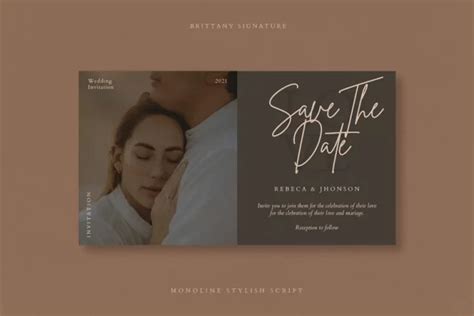
Brittany Font: A Comprehensive Guide
Hey everyone, and welcome to our deep dive into the world of the Brittany font ! If you’re looking for a typeface that brings a touch of elegance, sophistication, and perhaps a hint of vintage charm to your designs, then you’ve come to the right place, guys. We’re going to explore everything there is to know about this beautiful font, from its origins and characteristics to how you can best utilize it to make your projects truly shine. So, buckle up, grab your favorite beverage, and let’s get started on unraveling the magic of the Brittany font.
Understanding the Appeal of the Brittany Font
So, what makes the Brittany font so special? Well, a lot of it comes down to its design. Typically, fonts named “Brittany” evoke a sense of classic beauty, often inspired by traditional serif or script styles. Think of elegant wedding invitations, high-end branding, or perhaps a beautifully penned letter. The Brittany font often features graceful curves, balanced letterforms, and a certain fluidity that makes it incredibly pleasing to the eye. It’s the kind of font that whispers rather than shouts, conveying a sense of refined taste and attention to detail. Whether it’s a more formal serif with delicate serifs or a flowing script with swashes, the underlying theme is often one of timeless appeal. It doesn’t follow fleeting trends; instead, it relies on established design principles to create a lasting impression. This makes it a fantastic choice for projects where you want to convey trust, luxury, or a personal, heartfelt message. We’re talking about a font that can make your brand feel established and your personal notes feel extra special. It’s versatile enough to be used in both print and digital media, though its true elegance often shines brightest when rendered at larger sizes where its intricate details can be fully appreciated. Don’t underestimate the power of a well-chosen font, and the Brittany font is definitely a contender for adding that extra spark to your creative endeavors.
Where Did the Brittany Font Come From?
Understanding the history and inspiration behind a font can really enhance your appreciation for it. While “Brittany Font” might refer to a specific commercial typeface or a style that’s become popular, its roots often lie in classic typography. Many fonts bearing such names are inspired by historical scripts or early printing styles. For instance, some Brittany fonts might draw inspiration from 18th-century calligraphy, with its elaborate flourishes and detailed strokes. Others might be modern interpretations of classic serif fonts, designed to be more legible for contemporary use while retaining a sense of historical gravitas. The name itself, “Brittany,” evokes images of the Brittany region in France, known for its rich history and unique cultural heritage. This connection can lend the font an air of European sophistication and timelessness. It’s important to note that there might be several fonts available that go by the name “Brittany,” each with its own unique designer and backstory. Some might be free, while others are premium, paid fonts. When you’re looking for the perfect Brittany font, it’s always a good idea to check the designer’s notes or the font’s description to understand its specific inspiration and intended use. This context can help you ensure that you’re choosing a font that aligns with the emotional and aesthetic goals of your project. For designers, knowing the lineage of a font is like understanding the provenance of a piece of art – it adds depth and meaning to its application. So, while we might not be able to pinpoint a single origin for all Brittany fonts, their collective appeal often lies in their connection to a rich typographic past and a sense of enduring elegance.
Key Characteristics of the Brittany Font
Let’s get down to the nitty-gritty, guys! What are the defining features that make a font a “Brittany” font? While there can be variations, most fonts that carry this name share a few common traits that contribute to their signature look and feel.
Serif Styles
Many Brittany fonts lean towards the serif category. This means you’ll often find small decorative strokes, or “serifs,” at the ends of the main strokes of letters. These serifs can range from very delicate and subtle, adding a refined touch, to more pronounced and classic, reminiscent of traditional book printing. Fonts like “Brittany Serif” or those inspired by classic styles often boast these features. The presence of serifs generally lends an air of formality, tradition, and readability, especially in longer blocks of text. They help guide the eye along the line, making reading a more comfortable experience. Think of the kind of font you’d see in a well-bound novel or an academic journal; that’s often the vibe these serifs give off. They add a subtle visual texture that can make your content feel more substantial and credible. When choosing a serif Brittany font, pay attention to the weight and style of the serifs themselves. Are they sharp and angular, or soft and rounded? This detail can significantly impact the overall mood of your design.
Script and Calligraphic Elements
On the other hand, some Brittany fonts embrace the beauty of script and calligraphic styles. These fonts mimic the fluid motion of handwriting, often featuring elegant swooshes, connected letters, and a more personal, handcrafted feel. Imagine the beautiful lettering on a wedding invitation or a personalized gift tag – that’s the domain of script Brittany fonts. They convey warmth, intimacy, and a touch of romance. Fonts in this category might include “Brittany Script” or variations thereof. The key here is the flow and the expressiveness of the letterforms. Connected scripts can create a seamless, flowing appearance, while standalone scripts might offer more individual flair. When using a script Brittany font, it’s crucial to consider legibility. While beautiful, highly ornate scripts can sometimes be challenging to read in smaller sizes or in large blocks of text. They often work best for headlines, short phrases, or decorative elements where their visual impact is paramount. Look for scripts that have a good balance between flourish and clarity. Some designers offer variations with different levels of ornamentation, allowing you to customize the look to your exact needs. The goal is to harness their beauty without sacrificing readability, ensuring your message gets across effectively.
Ligatures and Alternates
A hallmark of many sophisticated Brittany fonts , especially script and more decorative serif styles, is the inclusion of ligatures and alternate characters . Ligatures are special combinations of two or more letters that are joined together to create a more aesthetically pleasing or readable form. For example, the letters “fi” might be joined into a single character to prevent awkward spacing. Alternate characters, also known as stylistic alternates or swashes, are variations of standard letters that offer more decorative or unique forms. These can include fancy initial caps, flowing end swashes, or unique letter combinations that add a personalized touch. Using these features can elevate your design from good to absolutely stunning. They allow for a level of customization that makes your text look truly unique, as if it were hand-lettered just for your project. Many modern digital fonts offer these OpenType features, which can be accessed through compatible design software like Adobe Illustrator or InDesign. Experimenting with ligatures and alternates is highly recommended when working with a Brittany font that offers them. It’s like discovering hidden gems within the font itself, allowing you to fine-tune the typography and add that extra layer of professional polish. Don’t shy away from exploring these advanced features; they are there to help you create truly bespoke typographic designs.
Versatility and Application
Despite often leaning towards elegance, many Brittany fonts are surprisingly versatile. While they excel in formal settings like wedding stationery, branding for luxury goods, or elegant editorial design, they can also be adapted for other uses. A more casual or modern interpretation of a Brittany font might work well for boutique businesses, artisanal products, or even personal blogs aiming for a chic aesthetic. The key is to understand the specific characteristics of the Brittany font you’re using. Is it a bold, strong serif? A delicate, flowing script? A minimalist sans-serif with a hint ofBrittany flair? Each variation will lend itself to different applications. For instance, a bold Brittany serif could be fantastic for a restaurant menu or a book cover that needs impact. A light, airy Brittany script might be perfect for a beauty brand’s social media graphics or a spa’s promotional materials. Don’t be afraid to experiment! Sometimes, placing an elegant font in an unexpected context can create a truly memorable and unique design. Consider the overall mood you want to convey. If you want to evoke a sense of tradition and trustworthiness, a classic Brittany serif is your go-to. If you’re aiming for romance and personal connection, a script version will do the trick. The beauty of a well-designed font family, which some Brittany fonts might be part of, is that it offers multiple weights and styles that can be used cohesively across different elements of a project, ensuring a consistent yet varied typographic experience. Ultimately, the versatility of the Brittany font lies in its adaptability to convey a specific feeling or brand personality, making it a valuable asset in any designer’s toolkit.
How to Use the Brittany Font Effectively
Now that we’ve explored the wonderful world of the Brittany font , let’s talk about how you can use it like a pro, guys! Applying this font effectively is all about understanding its strengths and using it strategically to enhance your message and overall design aesthetic. It’s not just about picking a pretty font; it’s about making it work for you.
Pairing with Other Fonts
One of the most common challenges when using a distinctive font like Brittany is figuring out what to pair it with. Overusing a fancy font can sometimes overwhelm a design, making it look cluttered or unprofessional. The golden rule? Contrast! If you’re using an elegant, perhaps ornate Brittany script for your headings, you’ll want to pair it with a clean, highly legible sans-serif or a simple serif font for your body text. This creates a visual hierarchy and ensures that your main message stands out while the supporting text remains easy to read. Think of it like this: the Brittany font is the star of the show, and the secondary font is the reliable supporting cast. Look for fonts that have a different personality but complement the Brittany font’s style. For example, a modern, geometric sans-serif can provide a nice contrast to a classic, flowing Brittany script. Conversely, if you’re using a sophisticated Brittany serif for headlines, a clean, minimalist sans-serif is often a safe and effective bet for the body copy. Avoid pairing it with another font that is too similar in style, as this can lead to a muddled look. Always test your pairings by viewing them at different sizes and on different screens to ensure they work well together. The goal is to create a harmonious typographic ecosystem where each font plays its part without competing for attention.
Conclusion: Embrace the Elegance of Brittany Font
So there you have it, folks! The Brittany font is more than just a collection of letters; it’s a tool that can infuse your designs with elegance, personality, and a timeless appeal. Whether you’re drawn to its graceful serif styles or its flowing script variations, this font family offers a fantastic way to elevate your creative projects. From wedding invitations that whisper romance to brand identities that exude luxury, the Brittany font proves its worth time and again. Remember to use it thoughtfully, pair it wisely with complementary typefaces, and always consider the context and audience. By understanding its characteristics and applying it strategically, you can unlock its full potential and create designs that are not only beautiful but also incredibly effective. So go ahead, experiment, and let the sophisticated charm of the Brittany font add that extra special touch to whatever you’re creating. Happy designing, everyone!